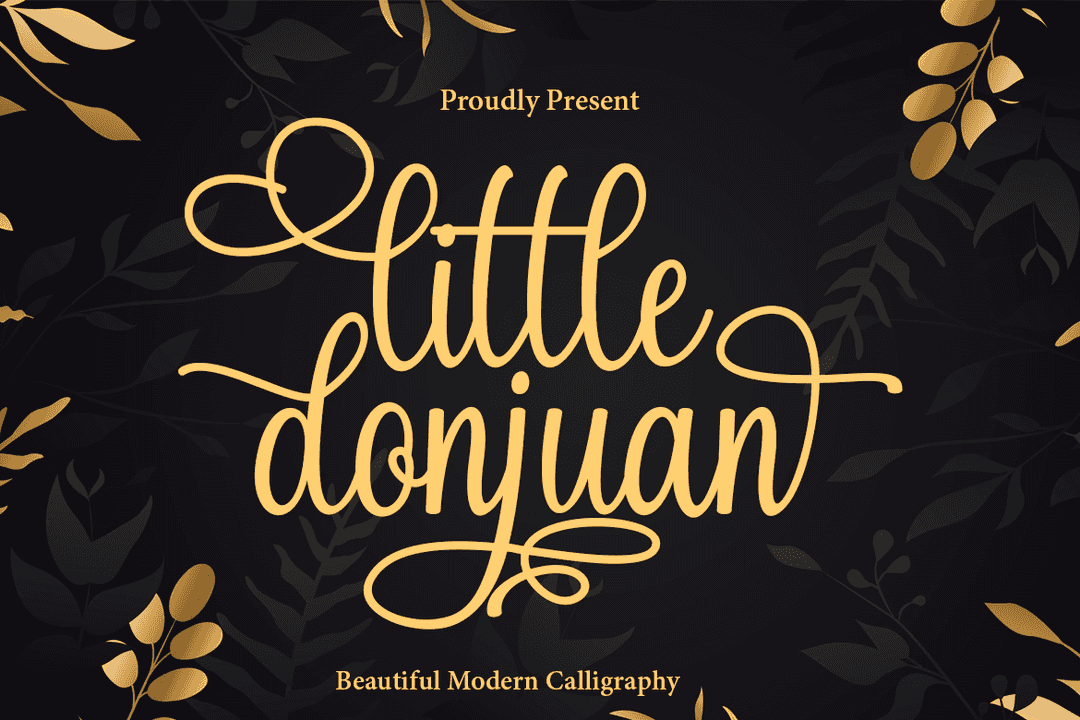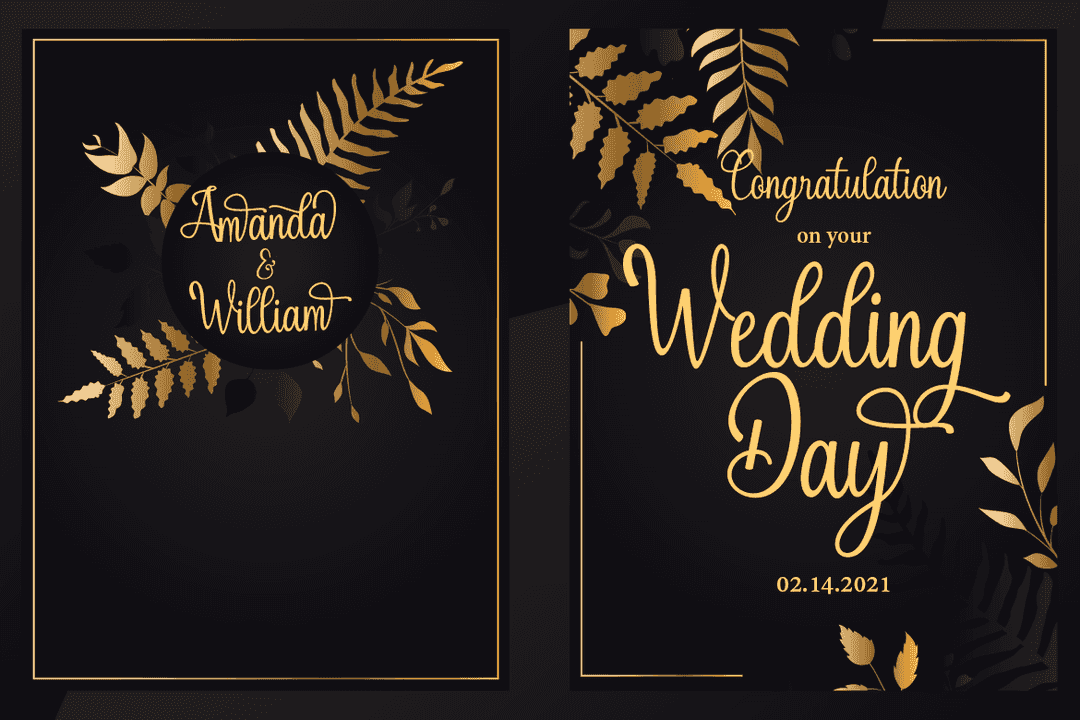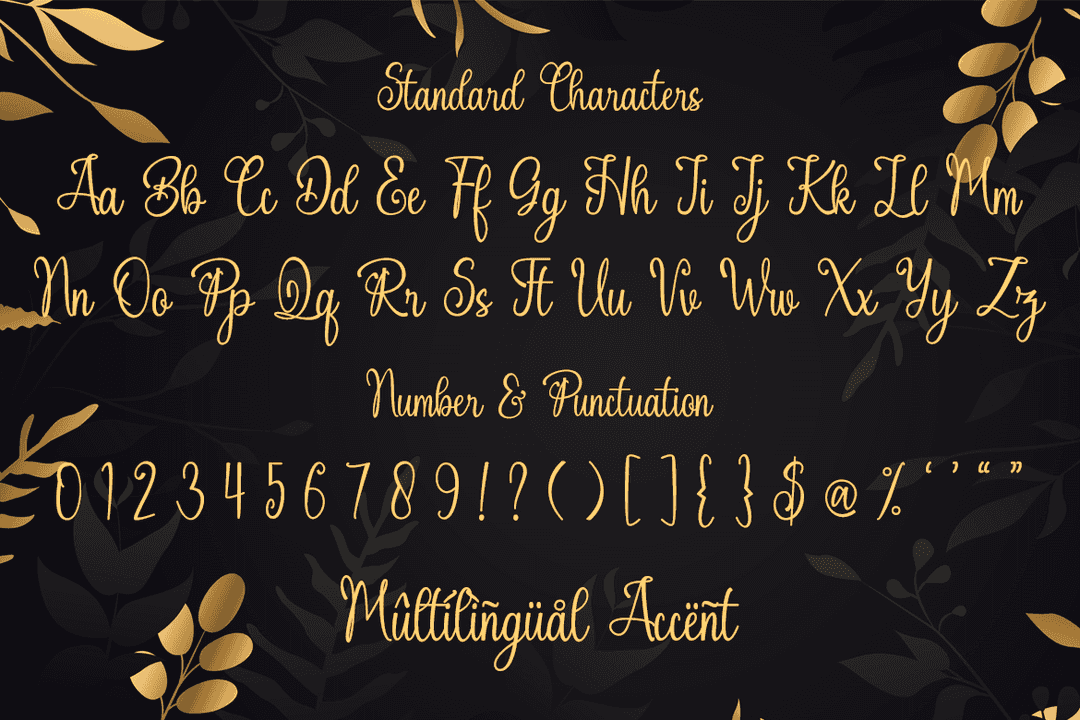
The Little Donjuan Calligraphy Font is a gorgeous, elegant and graceful handwritten font that makes a bold statement with its well-balanced characters and can fit seamlessly into many designs.